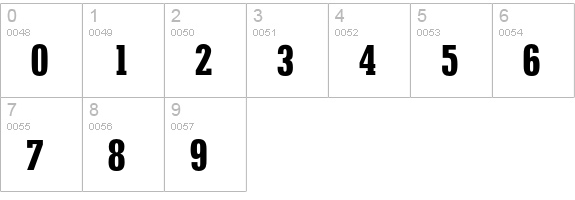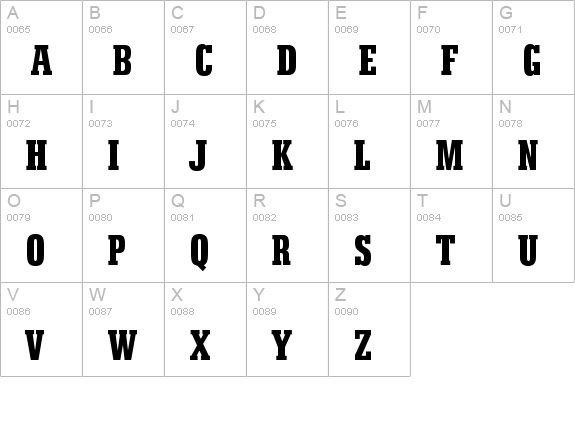
Stymie Extra Bold Condensed Font Details
Stymie Extra Bold Condensed is a strong, high-contrast, condensed-width variant in the Stymie typeface family \xE2\x80\x94 well suited to headlines, attention-grabbing titles, and strong calls-to-action.
Stymie Extra Bold Condensed font exudes power and confidence with its strong, condensed letterforms that command attention. This striking typeface is perfect for headlines, titles, and bold statements that need to make a bold impact. The thick strokes and tight spacing create a sense of urgency and boldness, making it ideal for designs that demand attention. What's even better is that Stymie Extra Bold Condensed font is available for free download at FontsMarket.com. This means that you can easily add this impressive font to your design arsenal without breaking the bank. Don't miss out on the opportunity to elevate your designs with this impactful and eye-catching typeface. Download Stymie Extra Bold Condensed font today and make a bold statement with your next project!